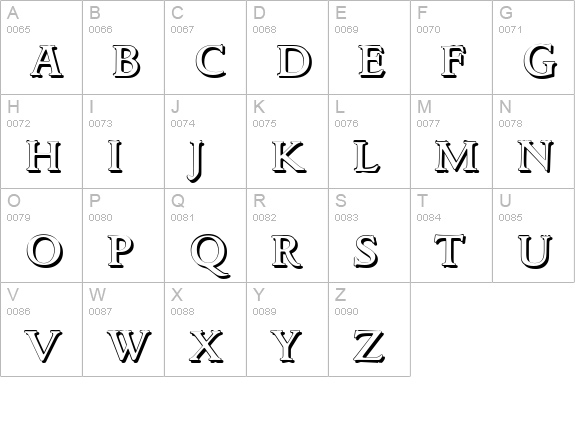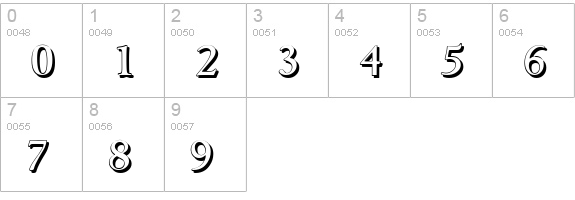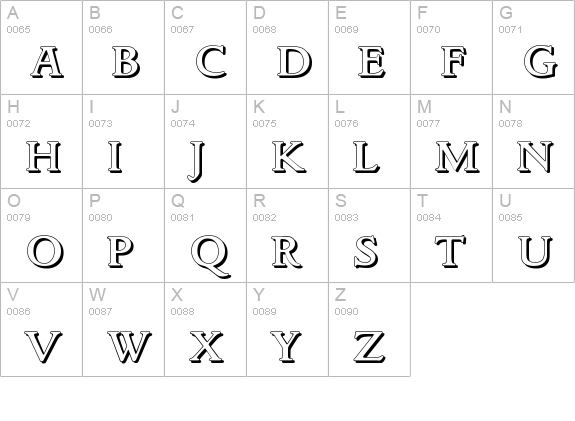
GouditaShadow-Medium-Regular is a balanced, medium-weight variant in the GouditaShadow typeface family \xE2\x80\x94 well suited to sub-headlines, navigation, and balanced editorial work.
GouditaShadow-Medium-Regular font is a sophisticated and elegant typeface that exudes a sense of modernity and style. Its sleek lines and sharp edges make it perfect for adding a touch of class to any design project. Whether you're creating a logo, poster, or website, this font will surely make a statement. The GouditaShadow-Medium-Regular font is not only visually appealing but also highly versatile, making it suitable for a wide range of applications. Its medium weight strikes the perfect balance between boldness and subtlety, making it a great choice for both headers and body text. The best part? GouditaShadow-Medium-Regular font is completely free to download at FontsMarket.com. You can easily access this stunning font and use it in your projects without any cost involved. Don't miss out on the opportunity to enhance your designs with this beautiful typeface. Download GouditaShadow-Medium-Regular font today and elevate your creative work to the next level.